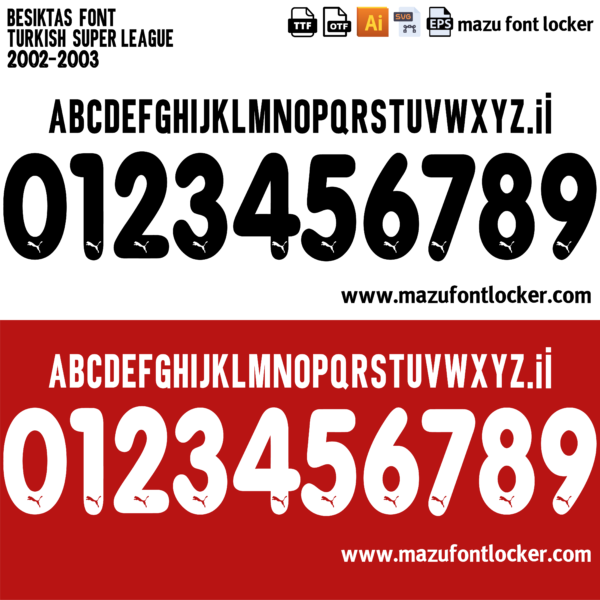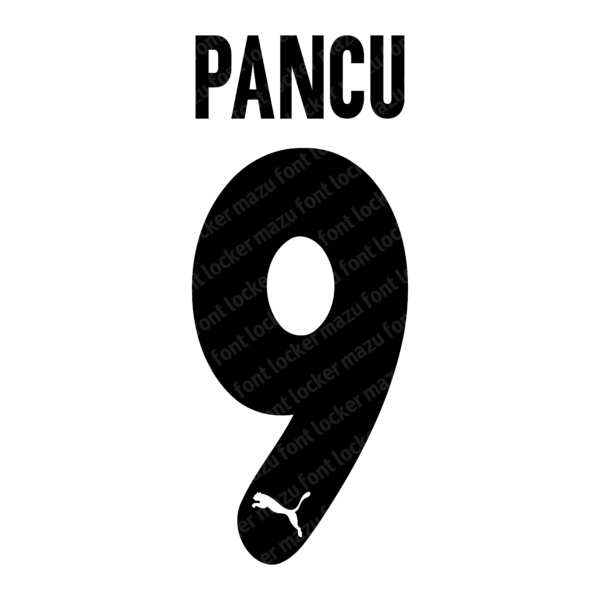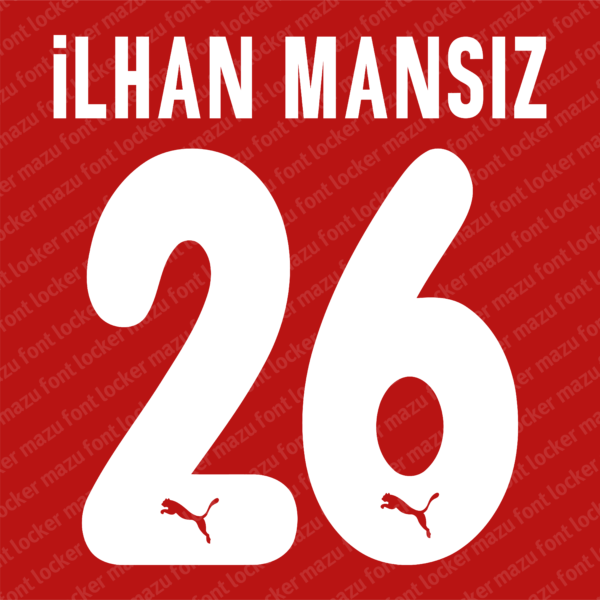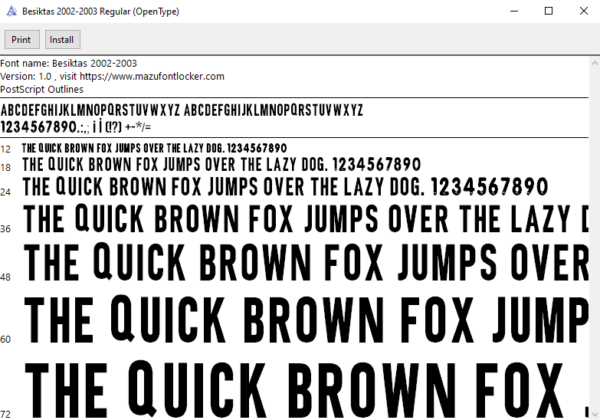
Besiktas 2002-2003 Font Vector – Legendary Black Eagles Glory Masterpiece
Relive the golden era of Turkish football with the Besiktas 2002-2003 Font, a premium football jersey font vector that authentically recreates the iconic lettering and numbering from the legendary Black Eagles kit. This meticulously crafted font captures the bold, passionate, and historic style that defined one of Besiktas’s most memorable seasons.
The Besiktas 2002-2003 Font is perfect for designers, football enthusiasts, jersey customizers, and retro apparel creators who want to deliver professional, high-quality results. Every letter and number has been carefully refined to ensure sharp lines, perfect spacing, and authentic retro aesthetics suitable for both digital projects and professional printing.
Whether you’re designing custom jerseys, posters, sublimation prints, or nostalgic football artwork, the Besiktas 2002-2003 Font brings unmatched energy and heritage to your creations. Stand out with this timeless classic that represents true Black Eagles pride and championship spirit.
Besiktas 2002-2003 Font Vector
The Besiktas 2002-2003 Font is a premium, high-precision football jersey font vector meticulously crafted to replicate the official bold lettering and commanding numbering style of the legendary 2002-2003 season.
Inspired by the iconic Black Eagles kit, this font delivers a fierce, passionate, and intimidating match-day presence that radiates Besiktas’s rich heritage, burning fighting spirit, and legendary Kara Kartallar pride. Every letter and number has been painstakingly recreated with exceptional detail to capture the sharp, powerful, and timeless aesthetic that defined one of Turkey’s most feared and respected clubs.
Feel the eagle’s roar. Embrace the legacy. Channel the true Black Eagles spirit.
• Authentic 2002-2003 Besiktas jersey lettering style
The authentic lettering style helps recreate the classic look of the Besiktas 2002-2003 kit with professional accuracy.
Unlike generic jersey fonts, this set is designed with a strong focus on authenticity and accuracy. Every detail is based on the original match lettering style used during the 2002-2003 Season, helping designers and collectors create realistic football shirt designs.
This Besiktas 2002-2003 font vector set is designed for authentic football jersey customization and works perfectly for retro football projects, collector designs, and professional sportswear artwork.